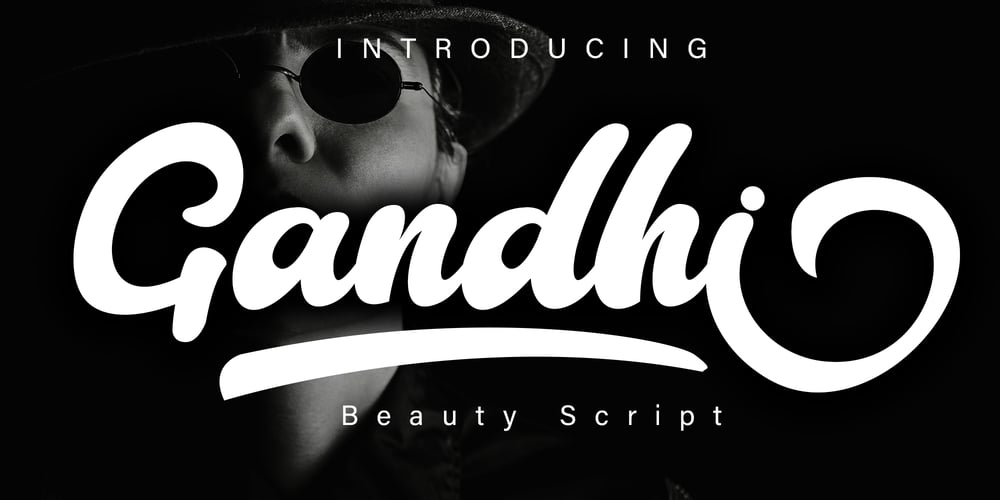
Gandhi Font Family was designed by Irfan Mahmudin and published by Skiiller Studio. Gandhi contains 1 styles and family package options. Gandhi is a beautiful font script, suitable for promotion of products, companies, logos, websites, song titles, and many others.What’s include:more than 200+ of glyphsLigatureStylistic alternate for lowercasePUA Encoded Characters – Fully accessible without additional design software.Basic Latin Language Support (AÀÁÂÃÄÅCÇDÐEÈÉÊËIÌÍÎÏÑOØÒÓÔÕÖUÙÜÚÛWYÝŸÆß )How to access alternate glyphs? you can see it on this link ( http://goo.gl/1vy2fv )